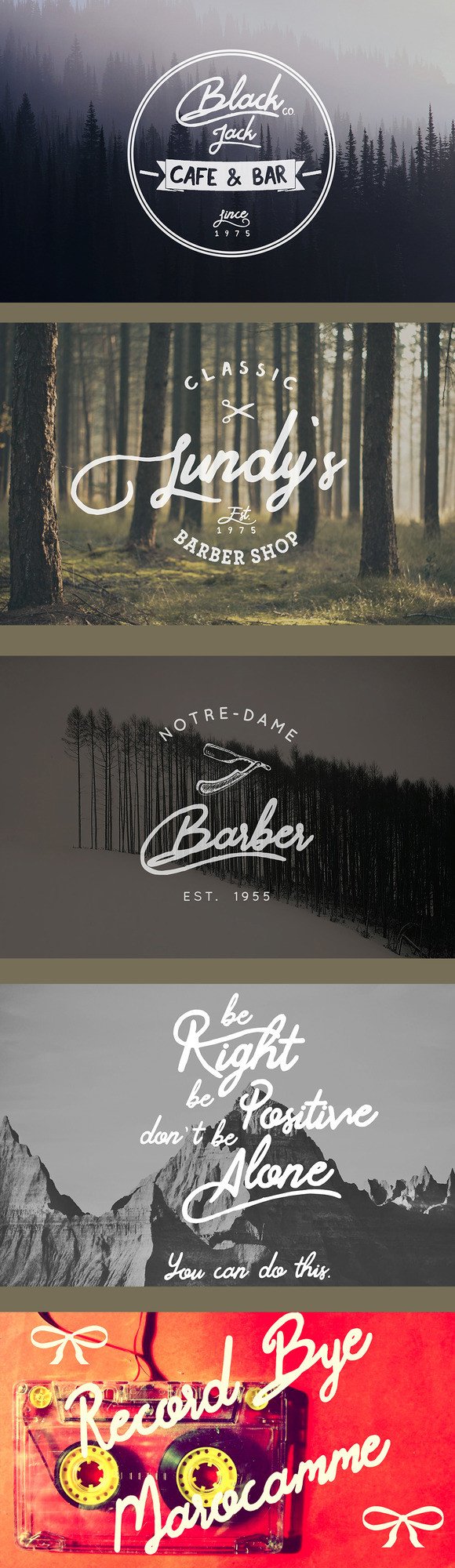
La Rose Font
About La Rose Font
La Rose is a beautiful & playful typeface! Perfect for designing invitations, greeting cards, branding materials, business cards, quotes, posters, t-shirts, and much more!